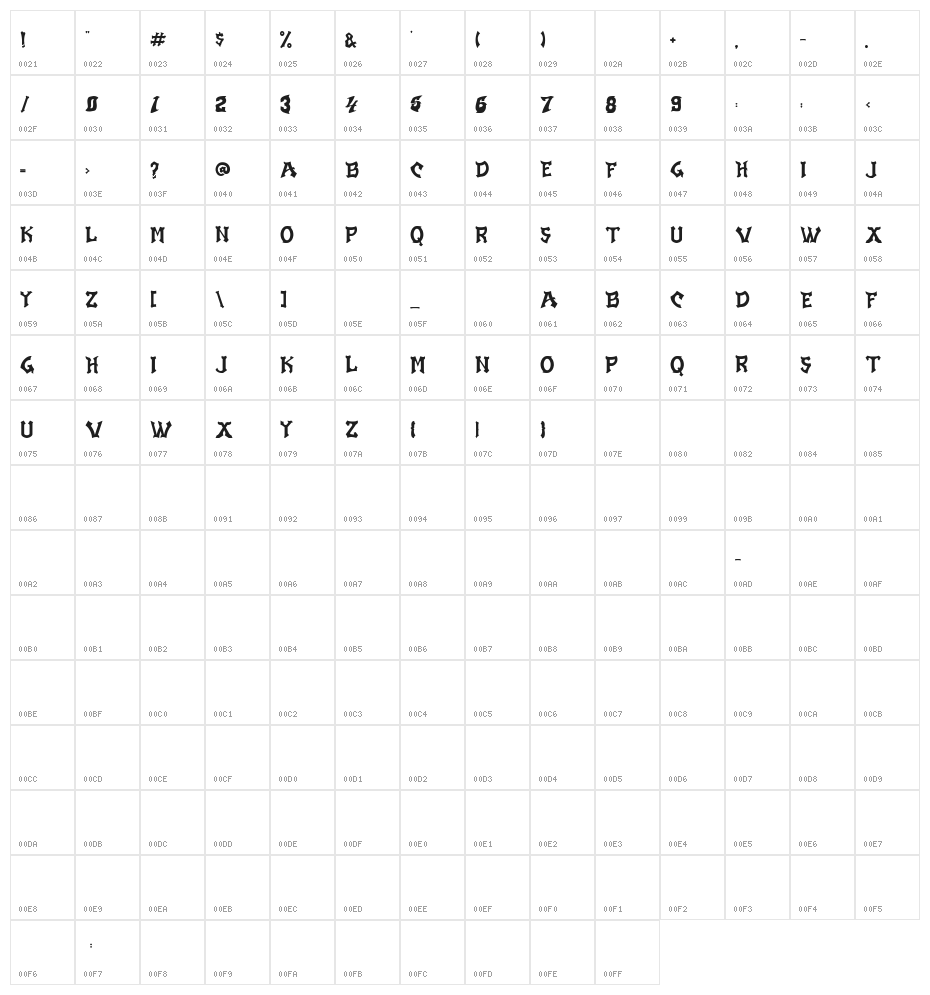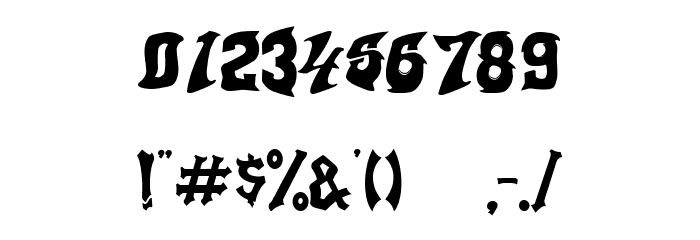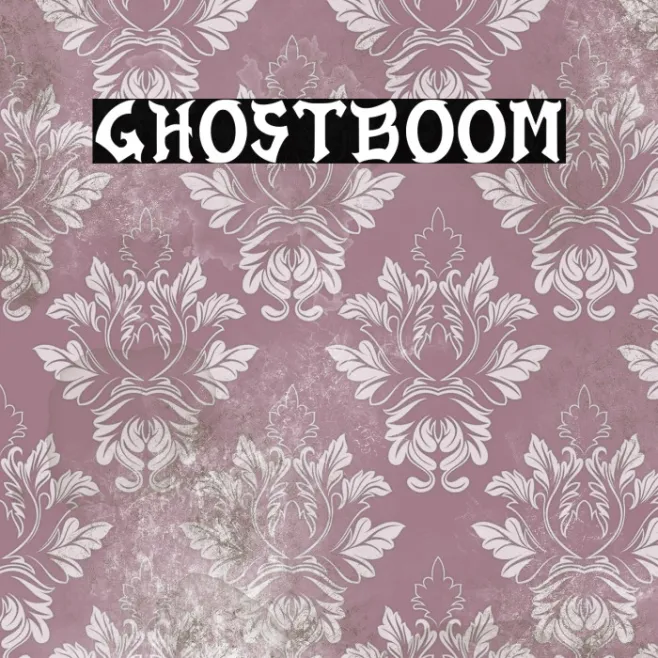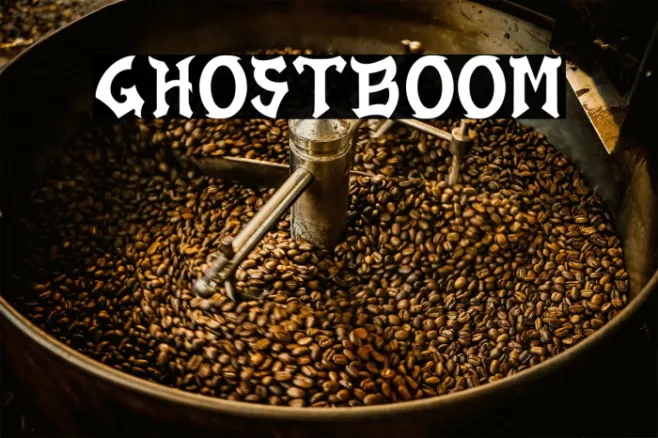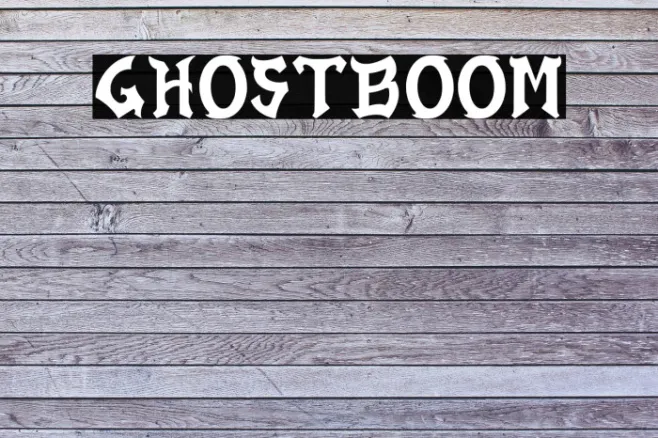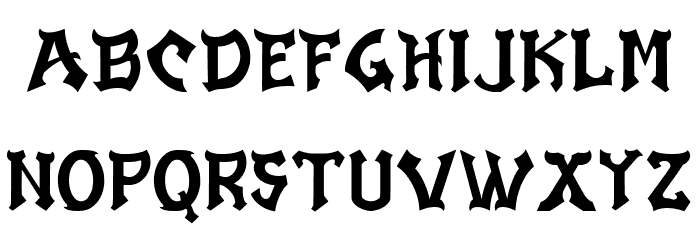
GHOSTBOOM Font
GHOSTBOOM Description
This font features a bold and striking design with sharp, angular edges and a gothic-inspired aesthetic. The uppercase and lowercase letters maintain a consistent style, characterized by pointed serifs and a slightly condensed form. The numbers and special characters follow the same theme, providing a cohesive look across all elements. The font's dramatic appearance makes it ideal for attention-grabbing designs, where a sense of mystery or intensity is desired. Its unique style is reminiscent of medieval or fantasy themes, making it suitable for projects that require a touch of the dramatic or the supernatural.
| Overall Style | Gothic, Dramatic |
| Proposed Projects | Ideal for Halloween-themed designs, fantasy book covers, video game titles, and event posters. |